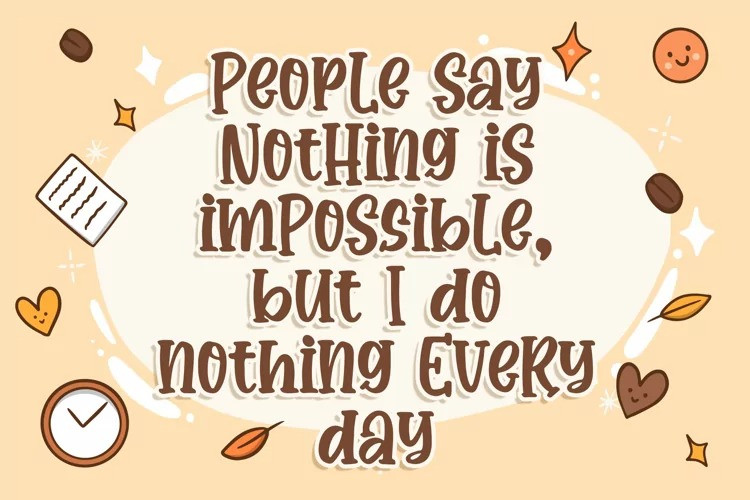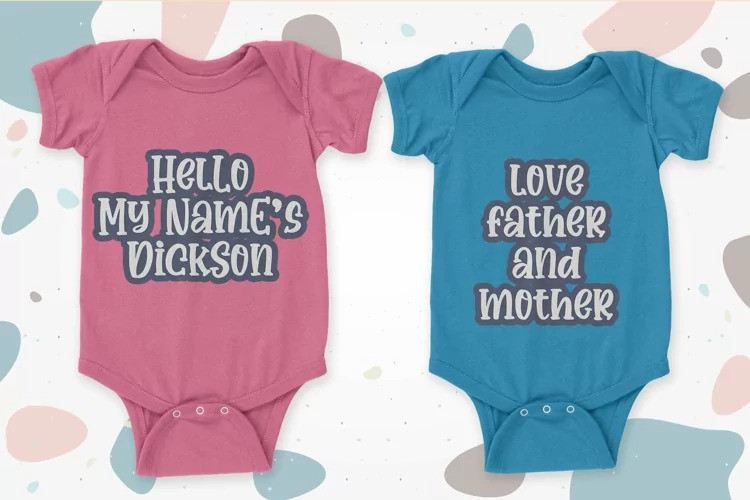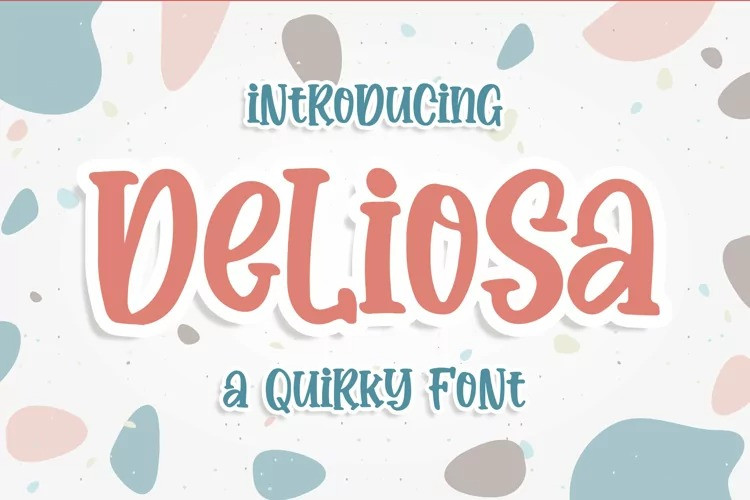
Deliosa Display Font
Introducing of our new product the name is Deliosa a Quirky Font. Deliosa inspired by Quirky Handwritten style this font is a fun theme very good for display, tshirt design, craft, quote sign, logotype and etc